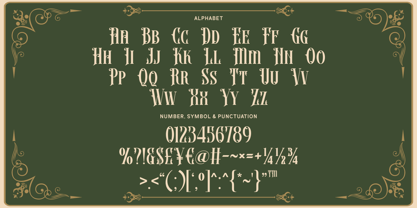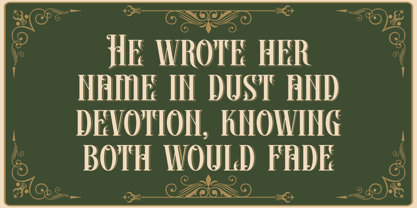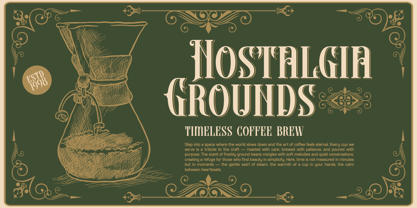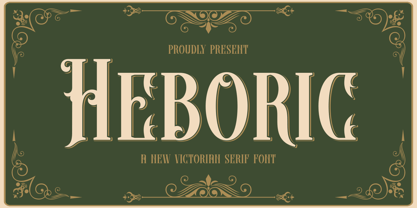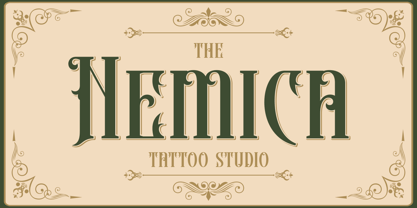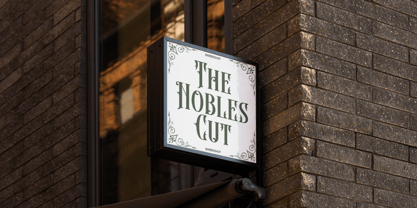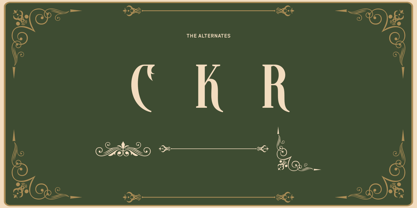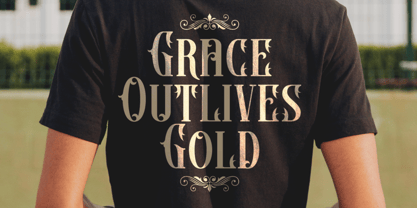
Heboric
Die Schriftfamilie Heboric wurde von Wahyudi Mokoagow entworfen und von Yeen Studio veröffentlicht. Heboric enthält 1 Stile. Mehr über diese Familie
Heboric is a decorative serif font that embodies a vintage display character, featuring tall uppercase forms, curled terminals, split serifs, and ornamental cut-ins. The letters are designed with strong vertical strokes, moderate contrast, and narrow spacing, which together create a formal, old-style rhythm. This font performs best at larger sizes, where its intricate flourishes and layered details remain distinct. Heboric is ideal for labels, café branding, tattoo studio graphics, posters, packaging, headers, and themed editorial titles. Its mood conveys an antique, theatrical, and slightly Western vibe, providing enough structure to ensure short words are readable while maintaining a heavily ornamental appearance.